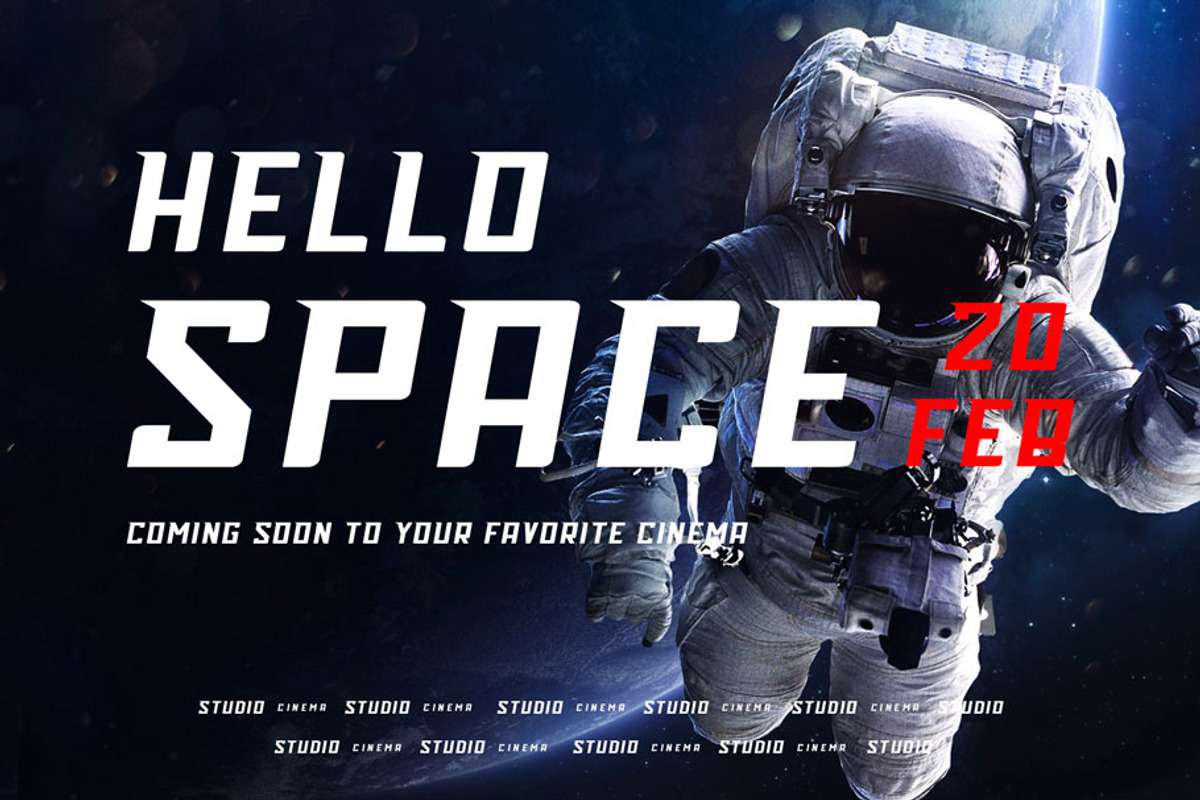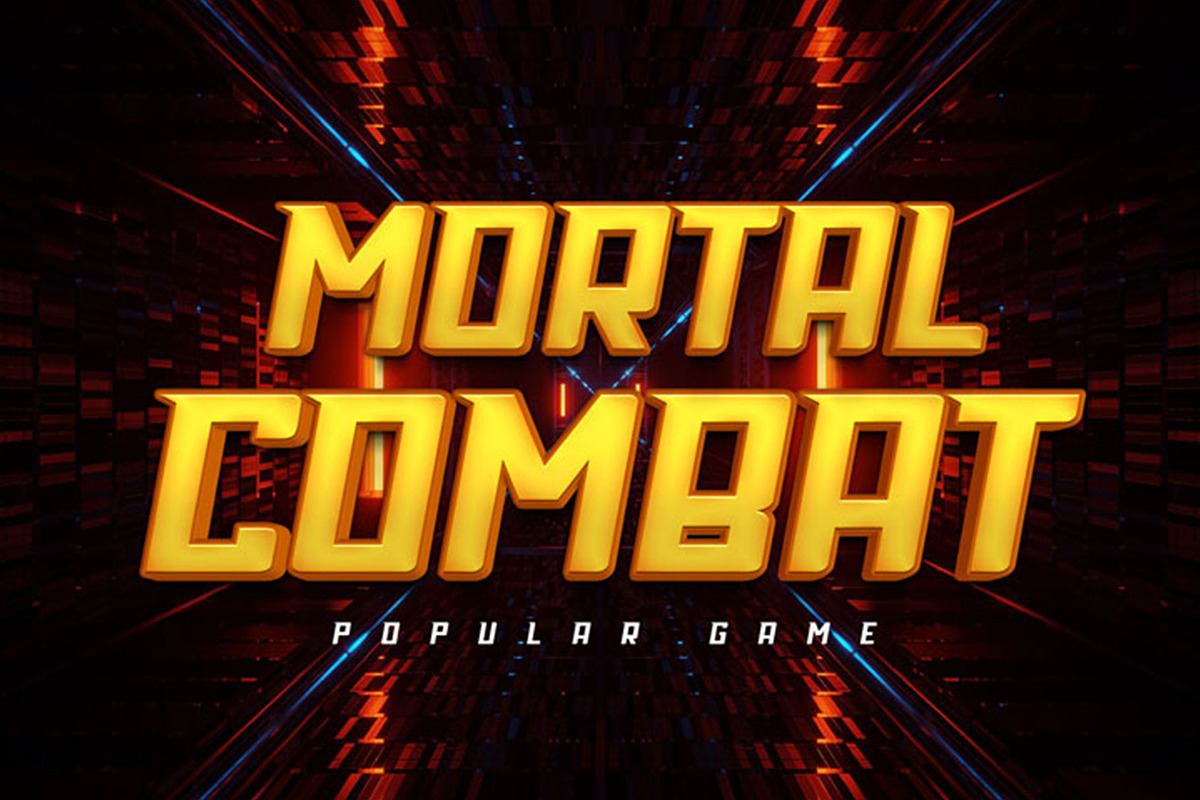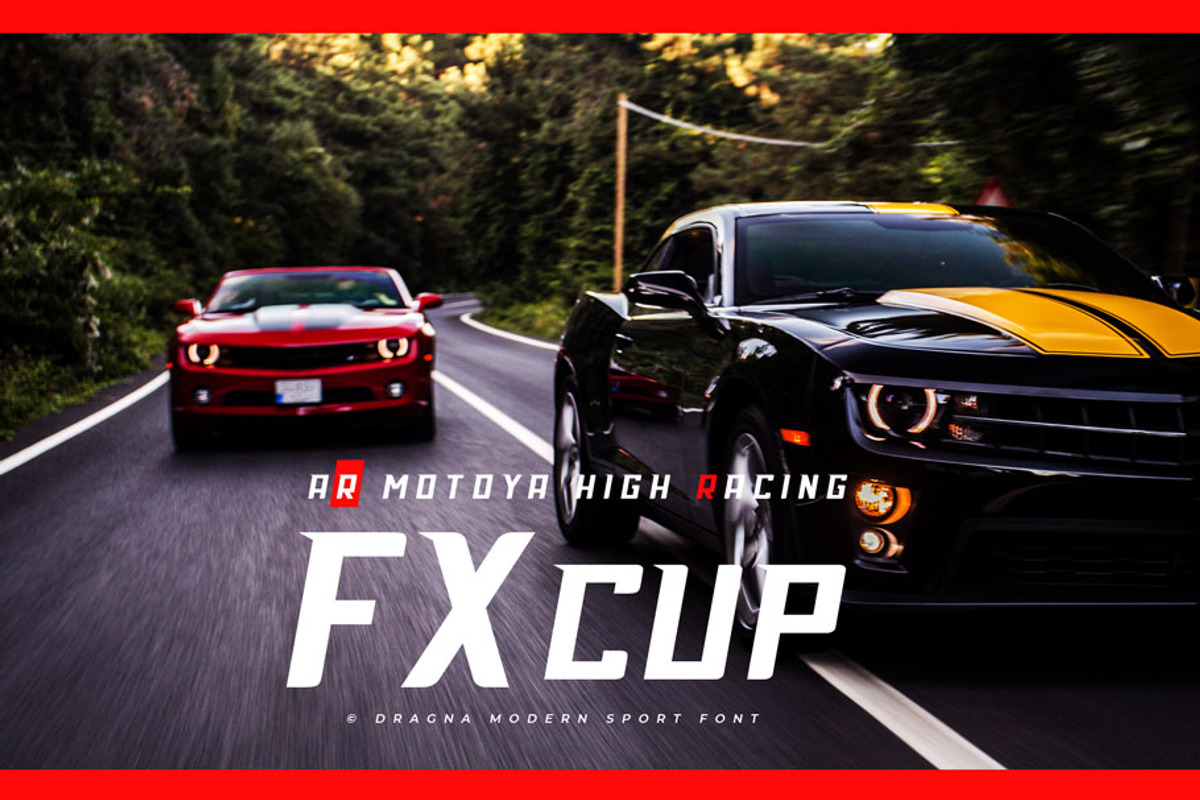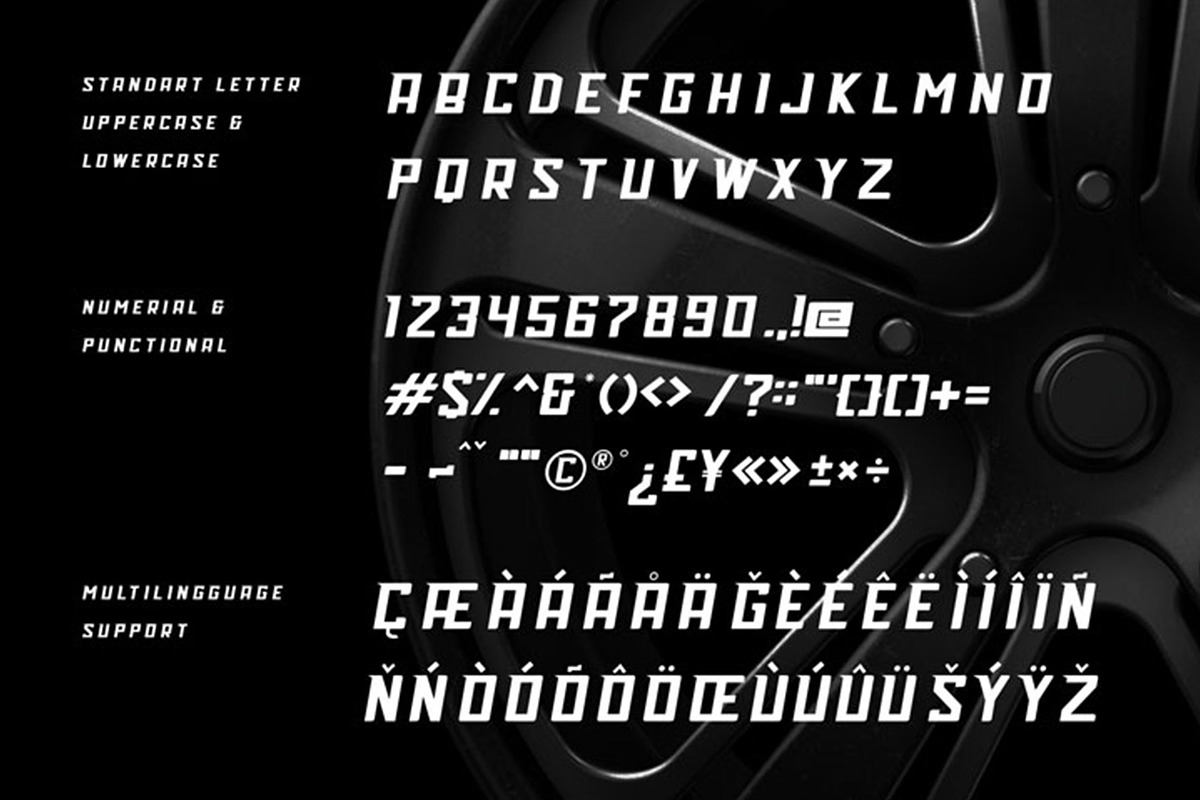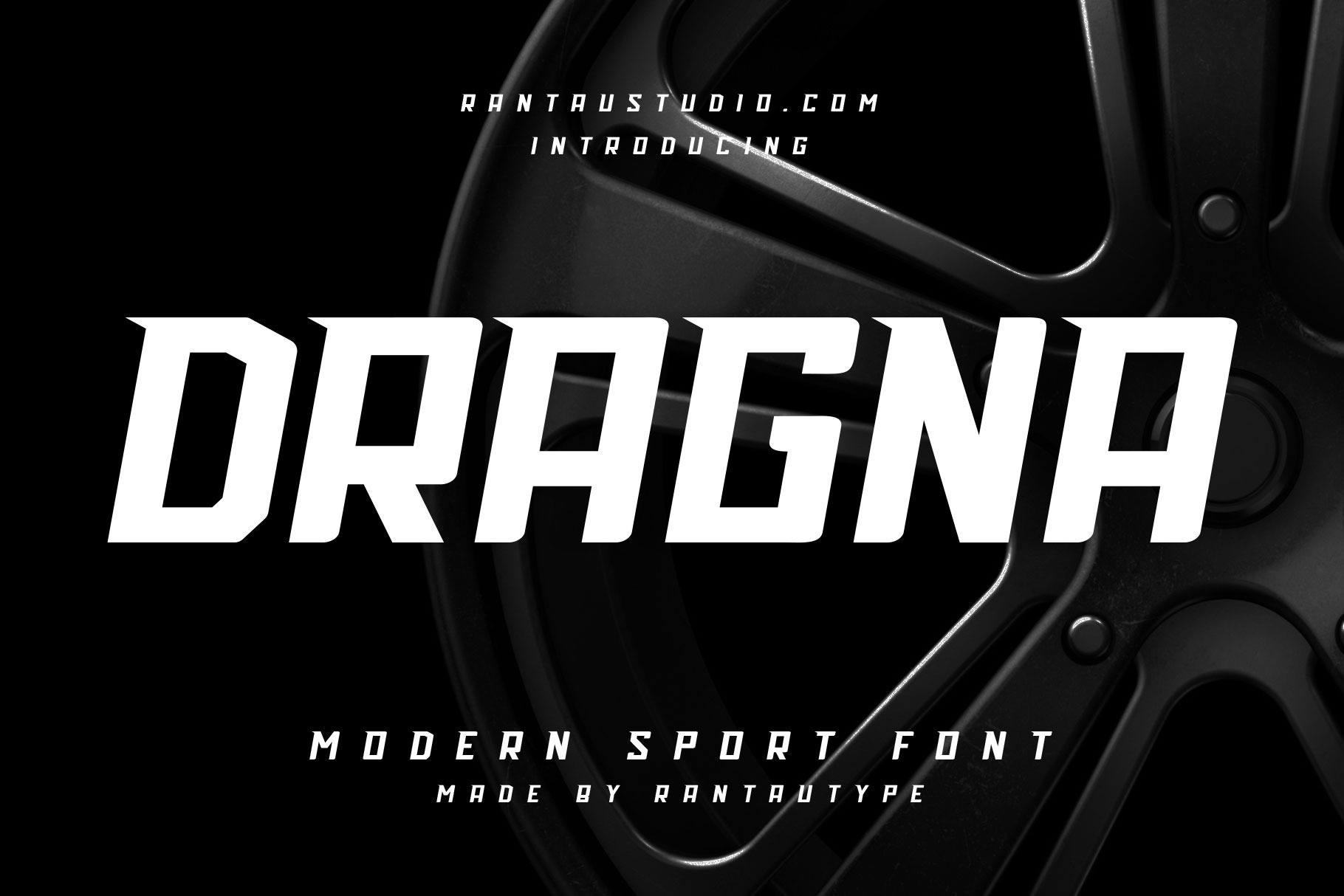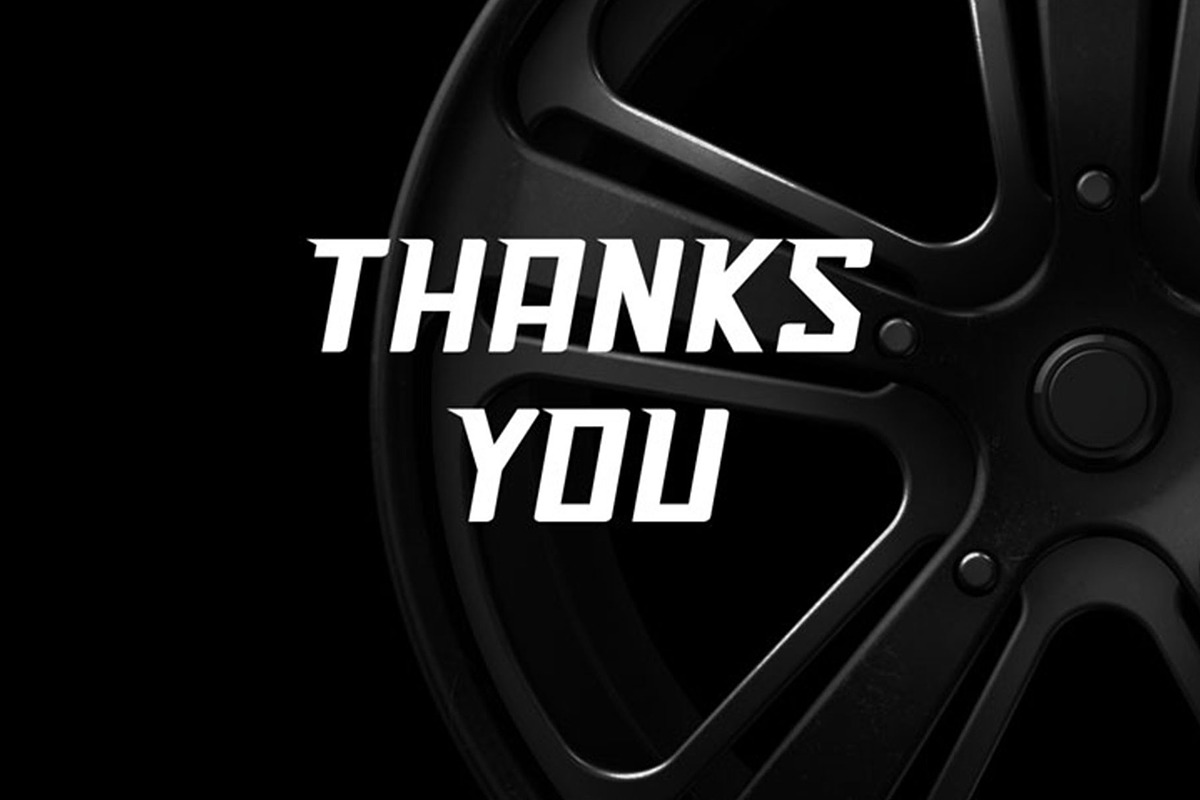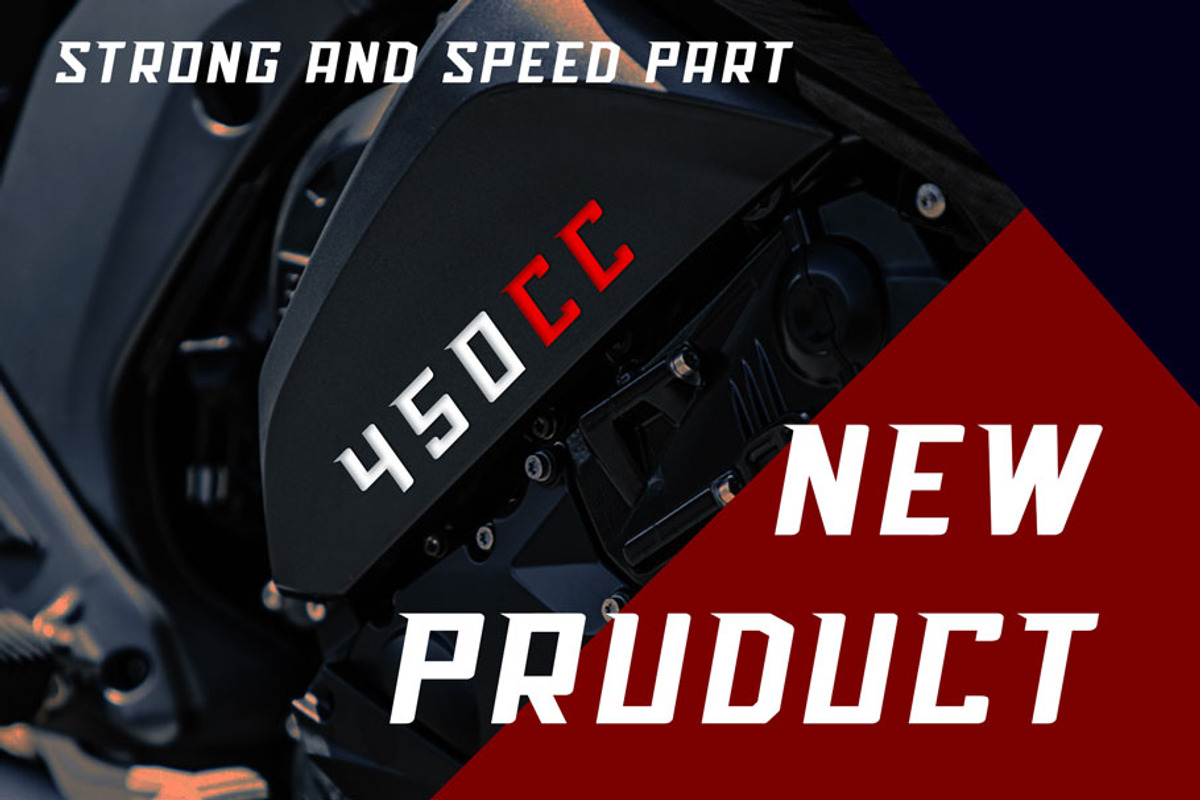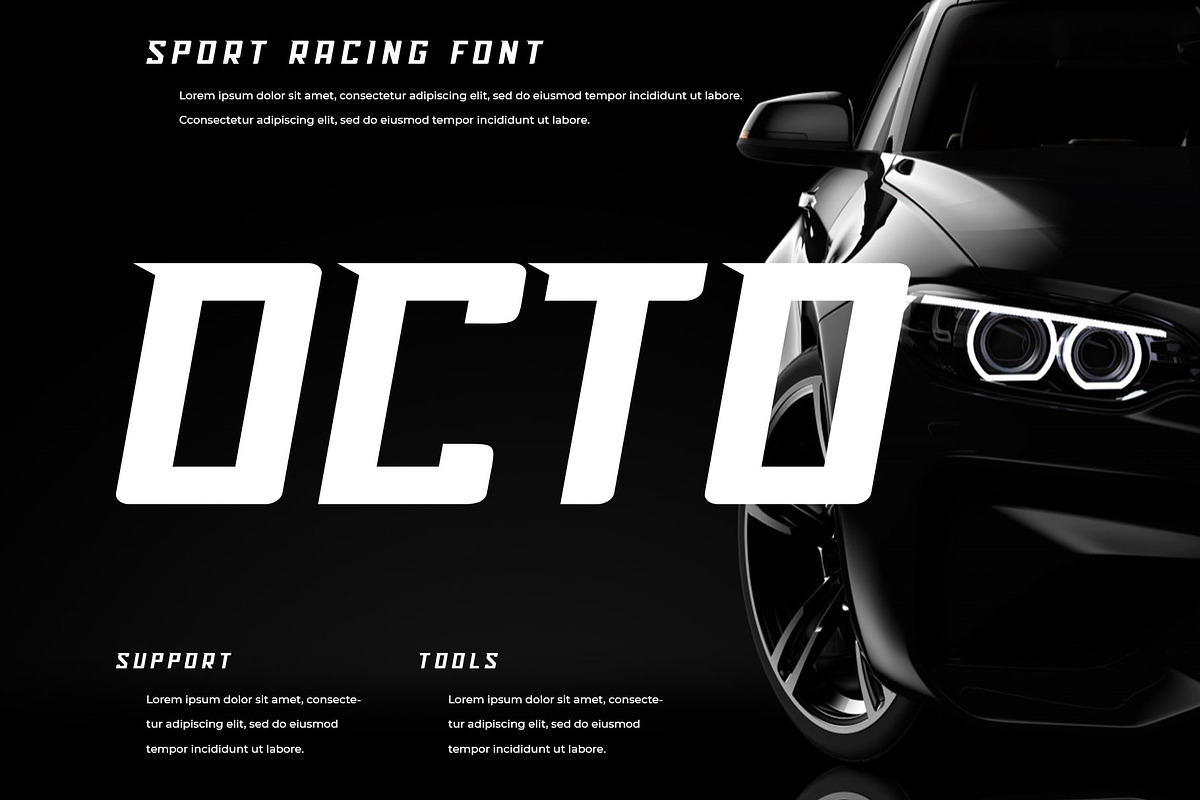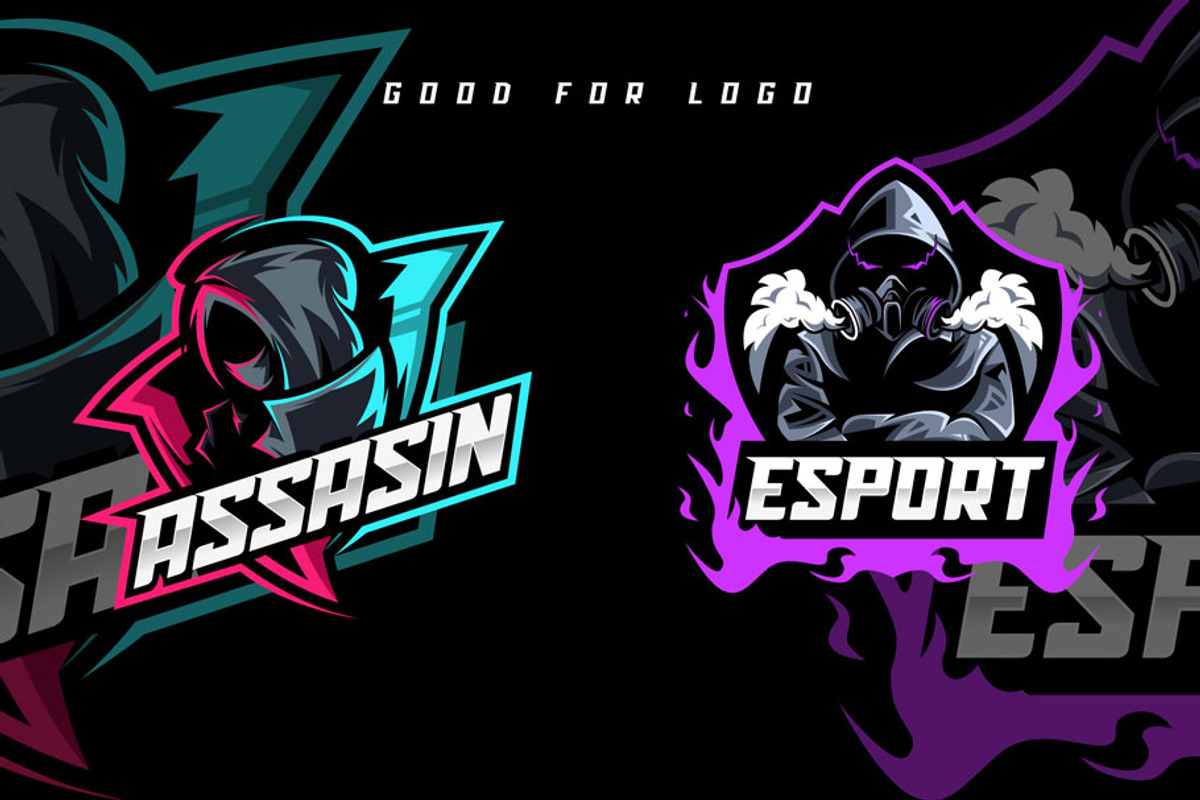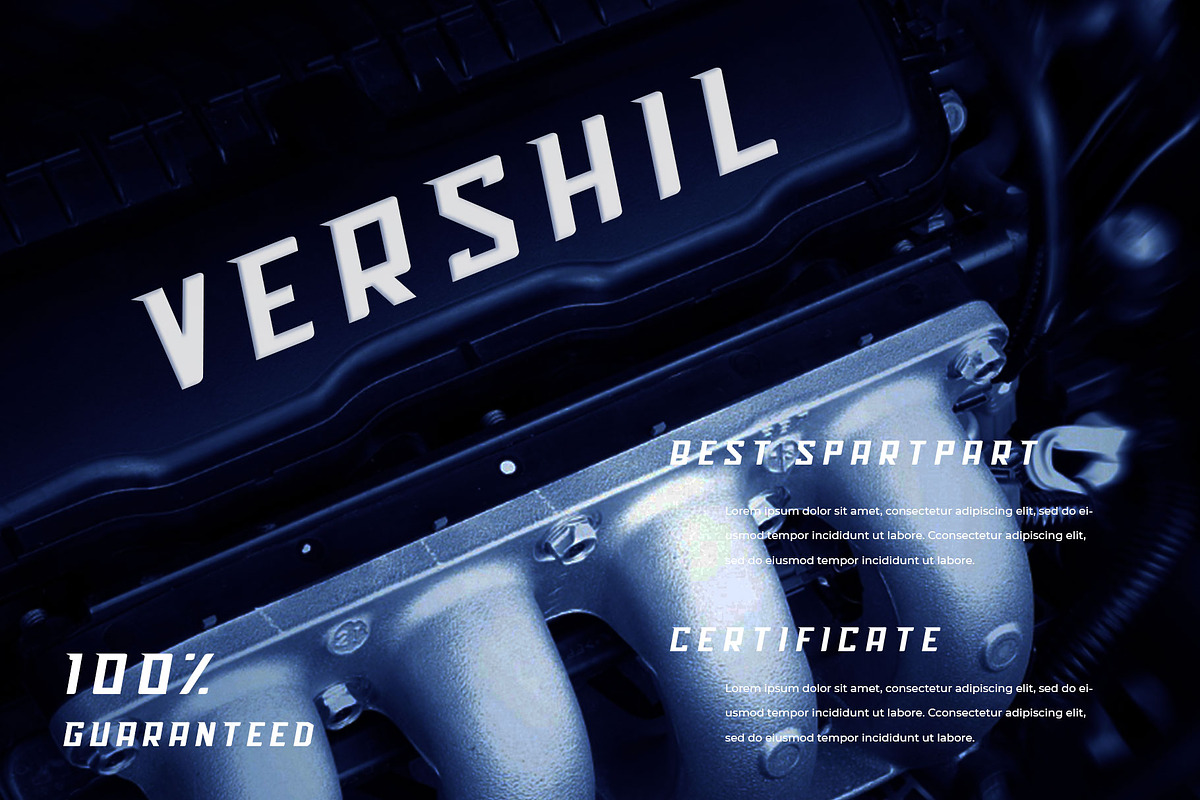
Dragna - Modern Sport Font
Hi Ladies and Gentleman ! Dragna is sport font with italic wide letters, modern letter cutout and dynamic slant.
Dragna Ideal for sports headline , logo esport and monogram of automotive game or other modern dynamic text. Dragna here to make your work to high level!!!
- Standart letter A-Z and a-z
- Numberial
- Functional